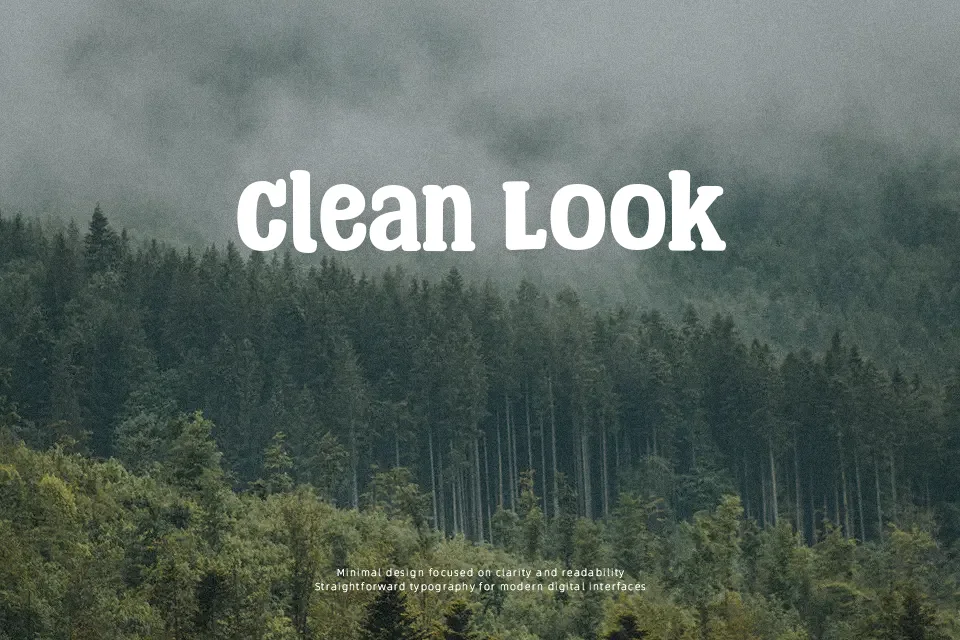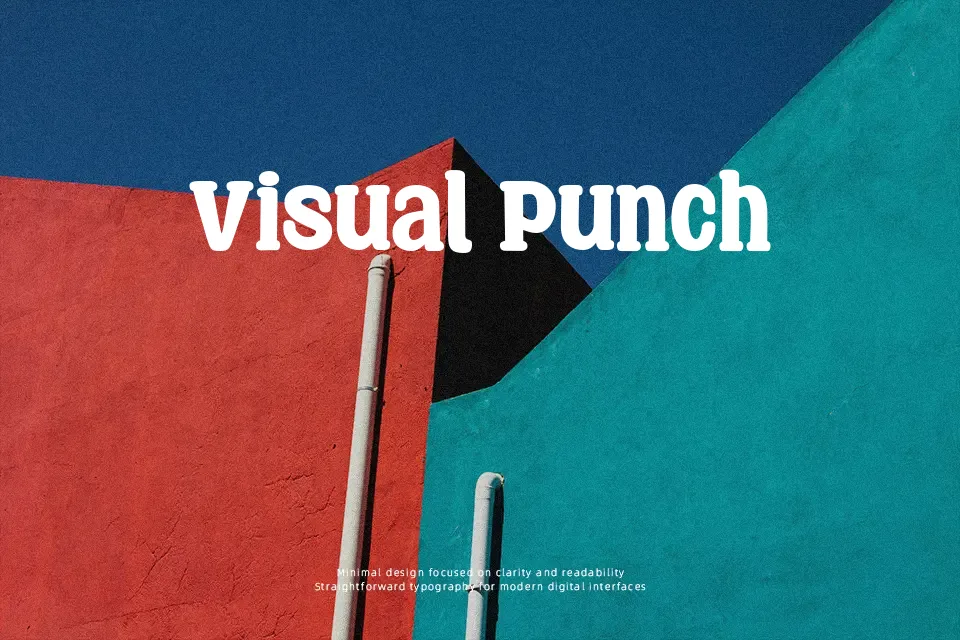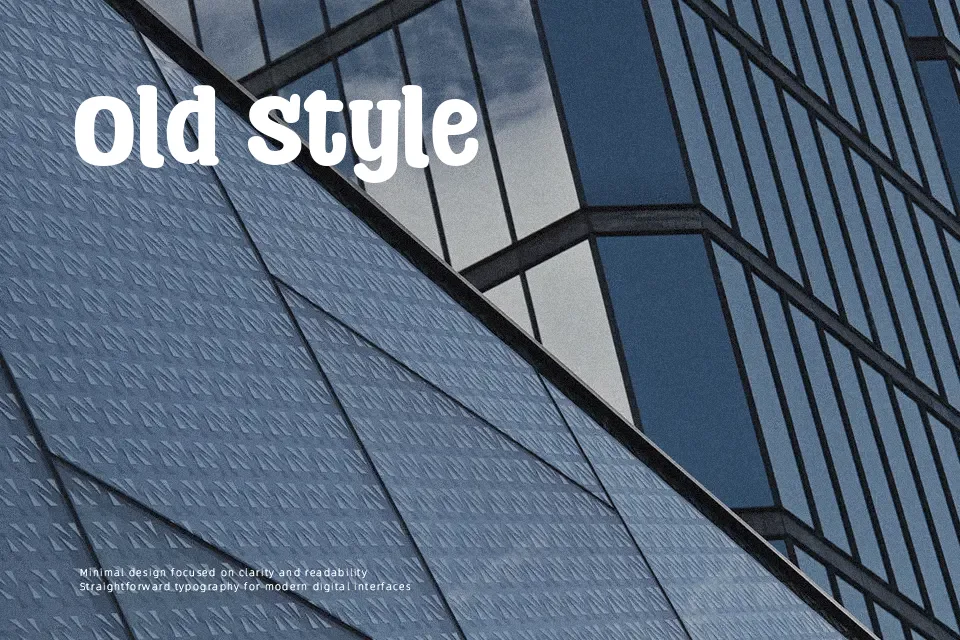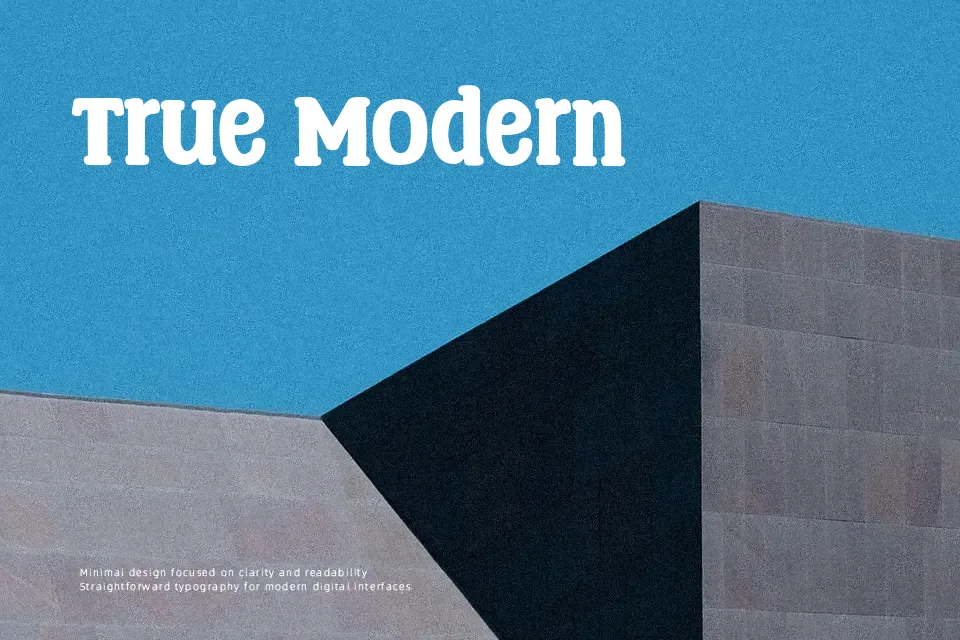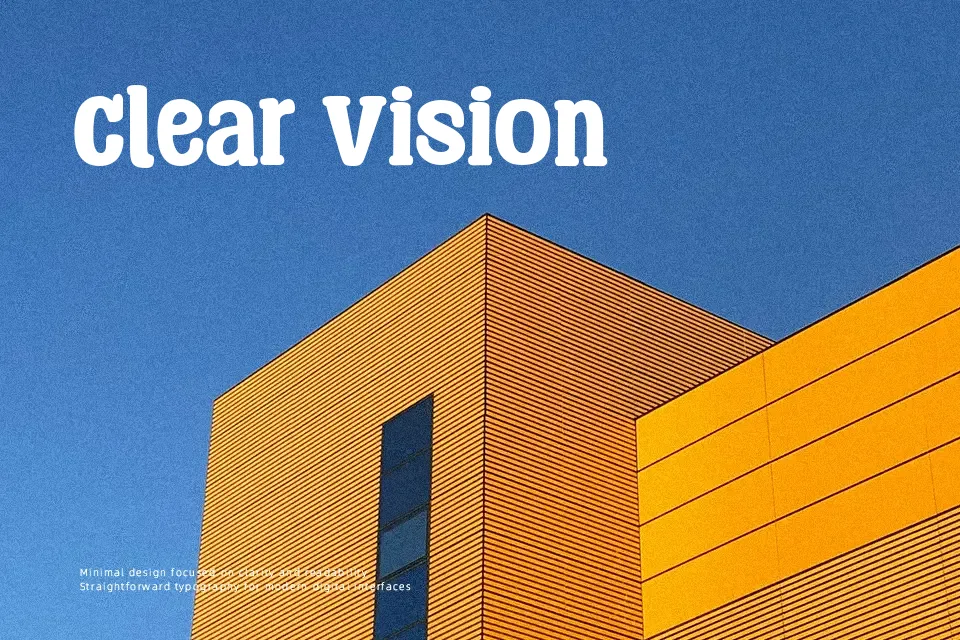
Sparky Stones Font
Sparky Stones Font uses heavy, rounded letterforms with uneven contours and a hand-drawn decorative texture. The broad strokes and compact proportions create a dense, lively silhouette, while the varied edges give individual characters a cartoon-like presence. Spacing appears designed for short, high-impact words rather than restrained text settings. The typeface remains recognizable in larger headlines, especially where a playful, chunky look is useful for posters, children’s graphics, and logo treatments. Its dense shapes and decorative detail make it less comfortable for small copy or extended reading.
Best For: children’s game titles,cartoon posters,playful product packaging,short logo headlines
Perfect for gaming, kids, and logo, with a bold and cartoon style.